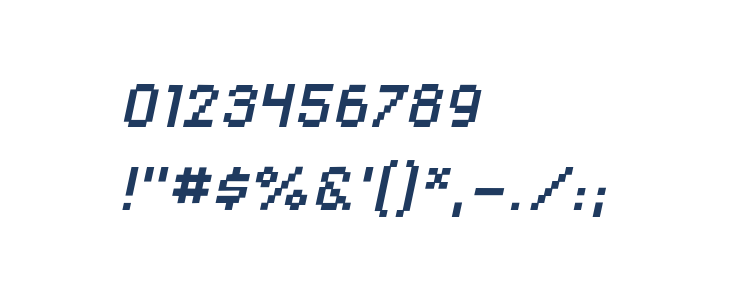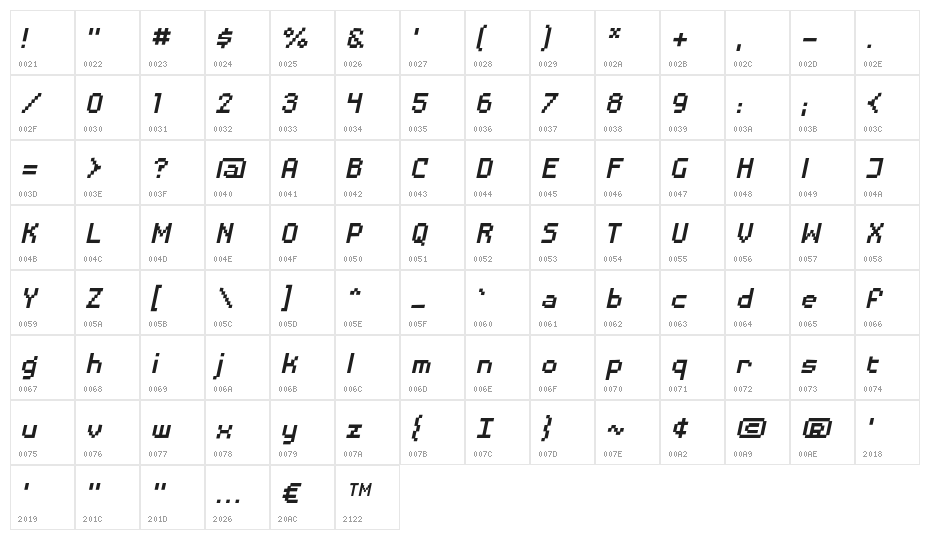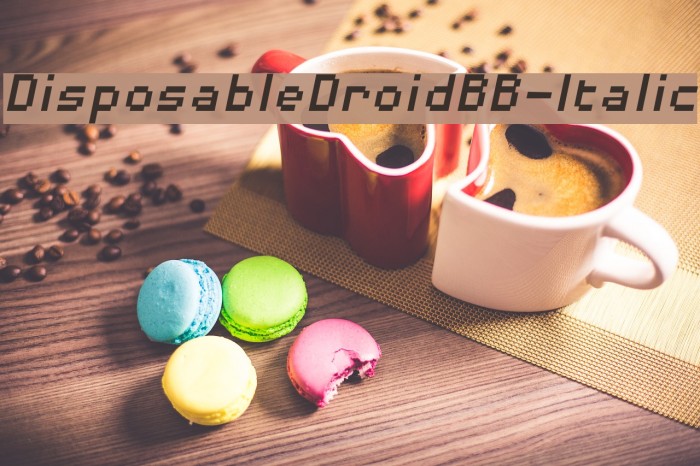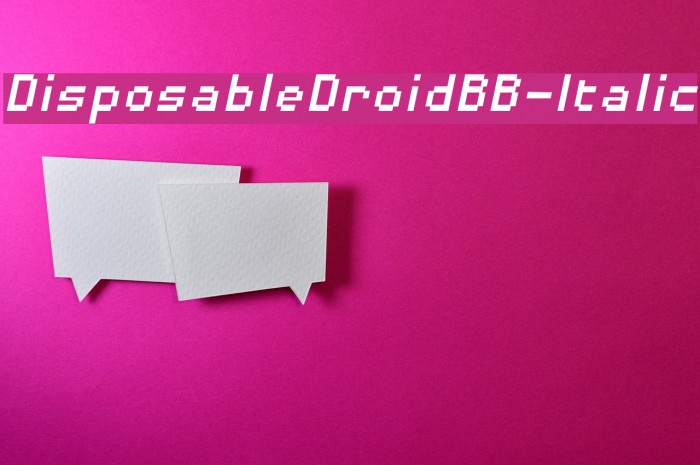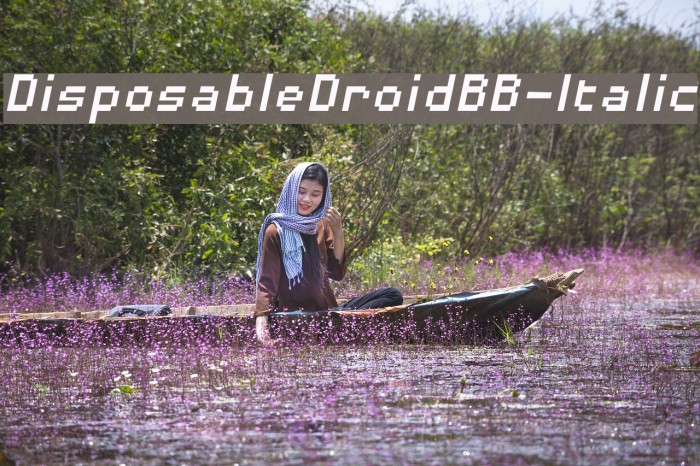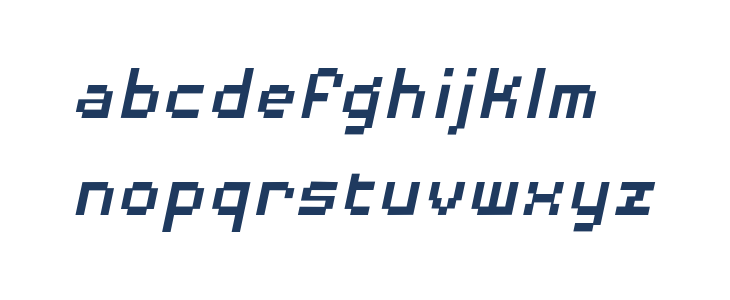
DisposableDroidBB-Italic Font
DisposableDroidBB-Italic Description
This font features a distinct pixelated style reminiscent of early digital displays and retro video games. Each character is composed of blocky, square shapes that give it a unique, nostalgic appearance. The italic slant adds a dynamic feel, enhancing its digital aesthetic. The uppercase and lowercase letters maintain a consistent design, with clear differentiation between each character. Numbers and special characters are equally stylized, ensuring uniformity across all glyphs. This font's bold, geometric structure makes it highly legible, even at smaller sizes.
| Overall Style | Retro, Digital |
| Use Case | Headlines, Logos, Digital displays |
| Proposed Projects | Ideal for video game design, retro-themed posters, digital art projects, and tech-related branding. |